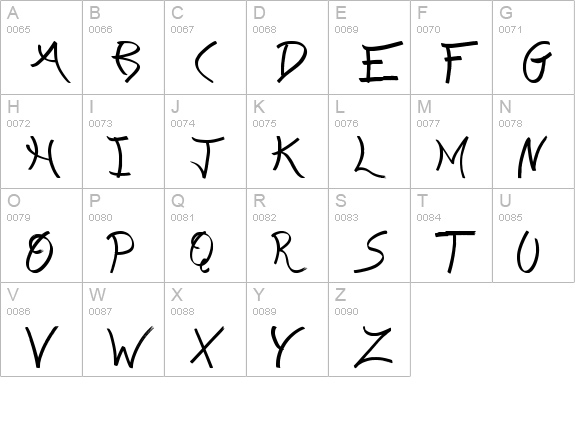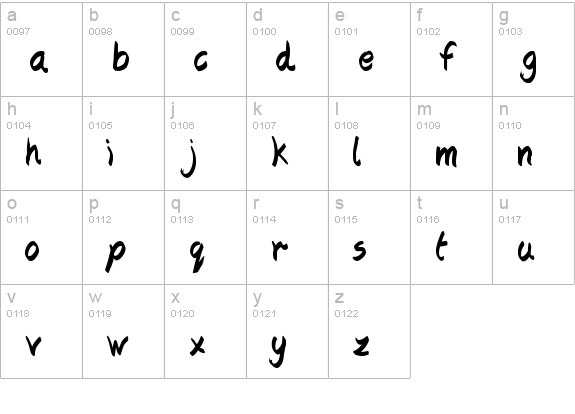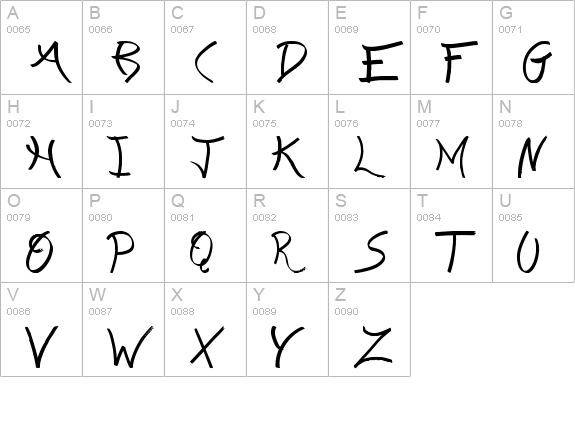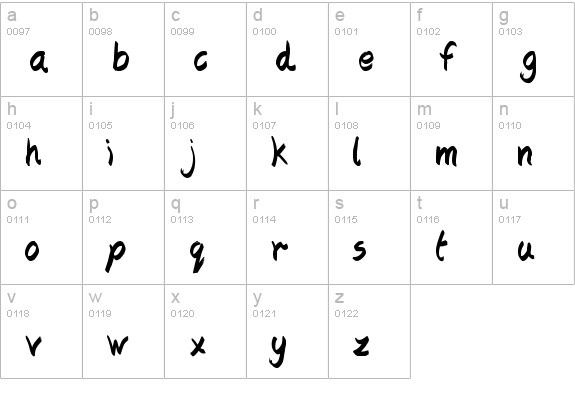
Introducing the mesmerizing and elegant Neat Font, a typeface that effortlessly combines sophistication and modernity. With its clean lines and well-defined shapes, this font is perfect for any design project that requires a touch of refinement. Each letter has been meticulously crafted to create a harmonious balance, making Neat Font a true standout in the world of typography. One of the best things about Neat Font is that it is available for free! Yes, you heard that right. This amazing font can be freely downloaded at FontsMarket.com, a trusted source for high-quality fonts. Whether you are a professional designer, a student, or anyone in need of a captivating font, Neat Font is the perfect choice. With its versatility, Neat Font can be used in a wide range of design applications. From logos and branding materials to website headers and social media graphics, this font will elevate your designs to new heights. Its timeless appeal ensures that it will never go out of style, making it a valuable asset for any creative endeavor. The attention to detail in Neat Font is truly remarkable. Each curve and stroke has been carefully thought out, resulting in a font that is both visually pleasing and legible. It effortlessly catches the eye without overpowering the overall design, making it a versatile option for various projects. So why wait? Unlock your creative potential and download Neat Font for free at FontsMarket.com. Embrace the elegance and charm of this captivating font and see your designs come to life. Whether you are a seasoned designer or just starting out, Neat Font is sure to become a valuable addition to your font collection. Don't miss out on this opportunity to enhance your designs with this unique and stunning font.